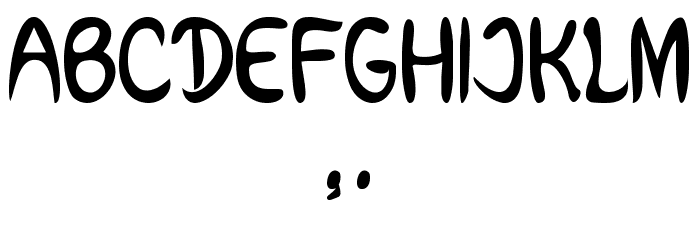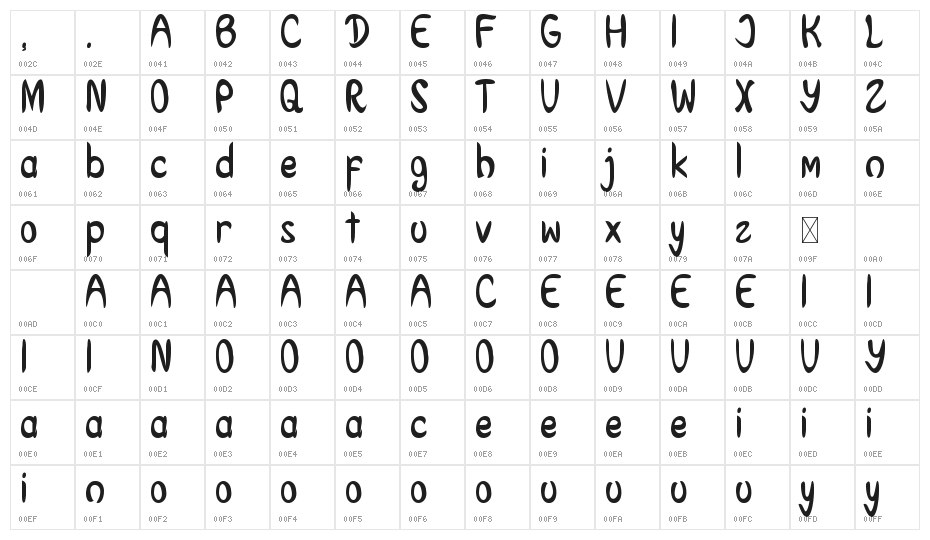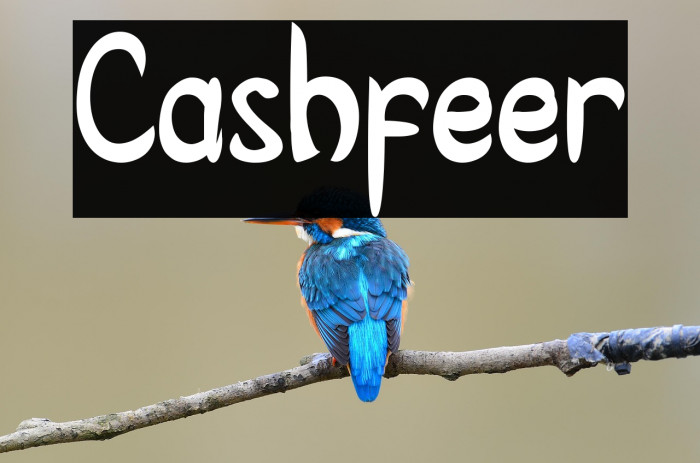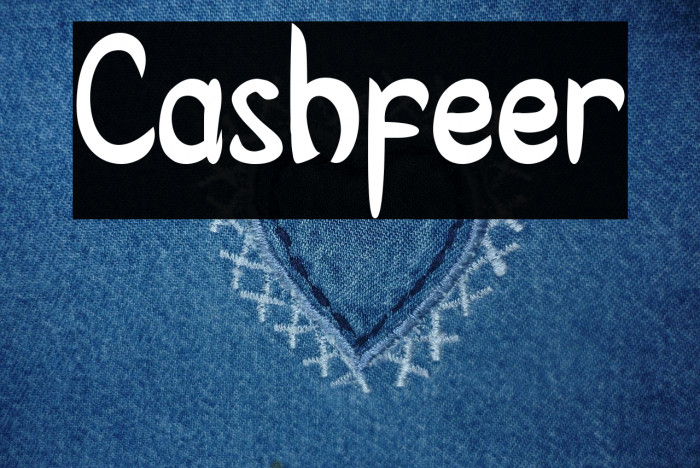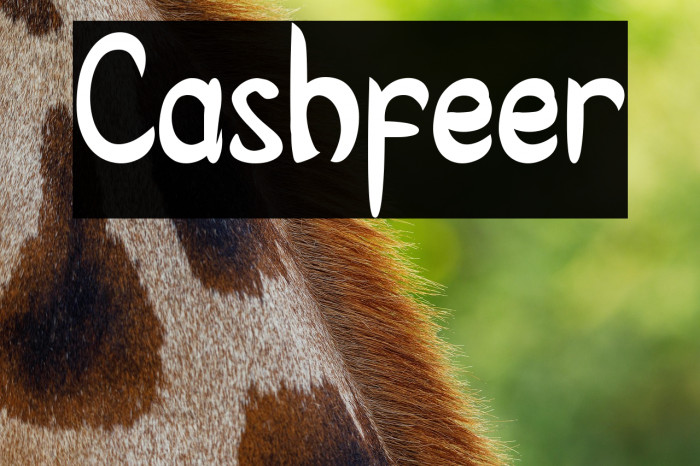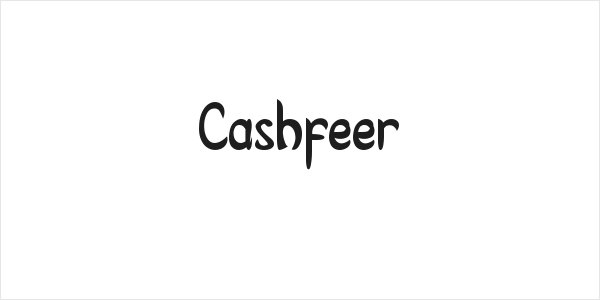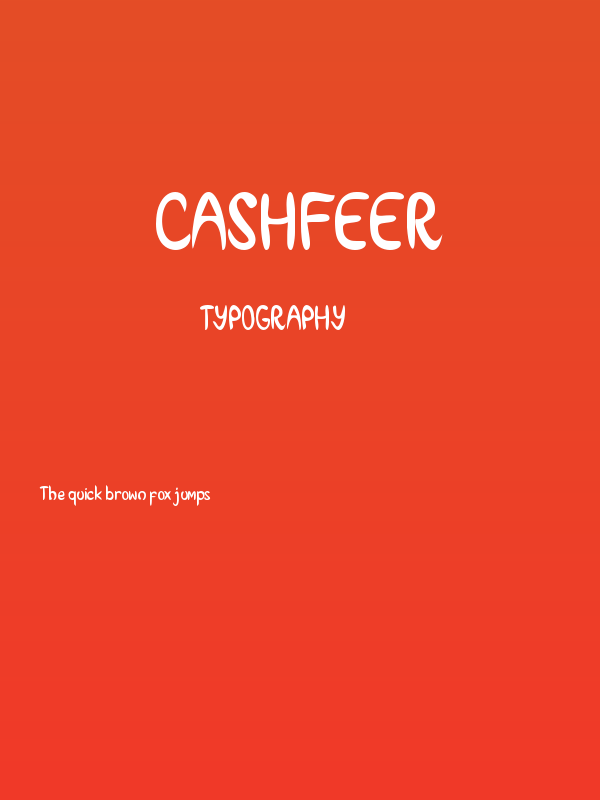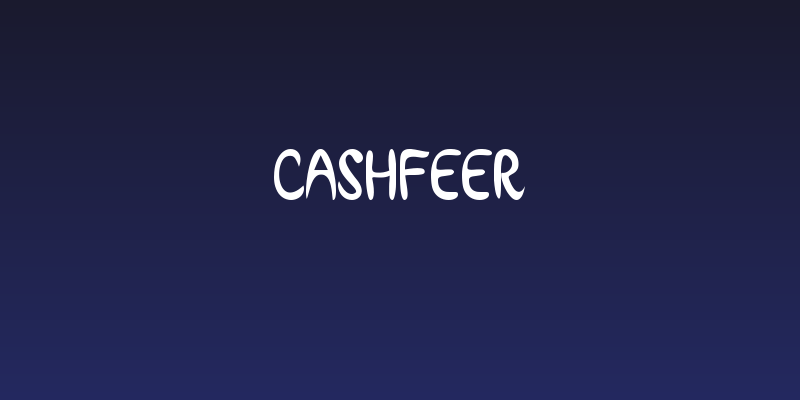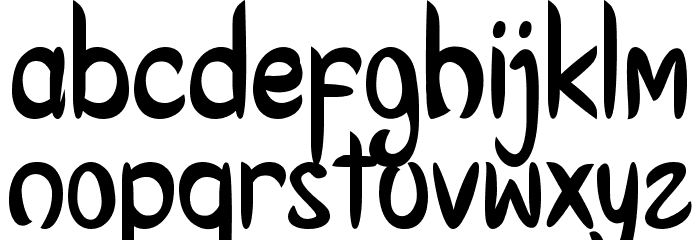
Cashfeer Font
Cashfeer Description
This font features a playful and bold design with rounded edges and a hand-drawn aesthetic. The characters exhibit a consistent thickness, giving them a uniform appearance that enhances readability while maintaining a whimsical charm. The uppercase and lowercase letters are well-proportioned, with a slight slant that adds a dynamic feel. The numbers and special characters are crafted to match the overall style, ensuring cohesion across all elements. This font is ideal for projects that require a friendly and approachable look, such as children's books, casual branding, or creative posters.